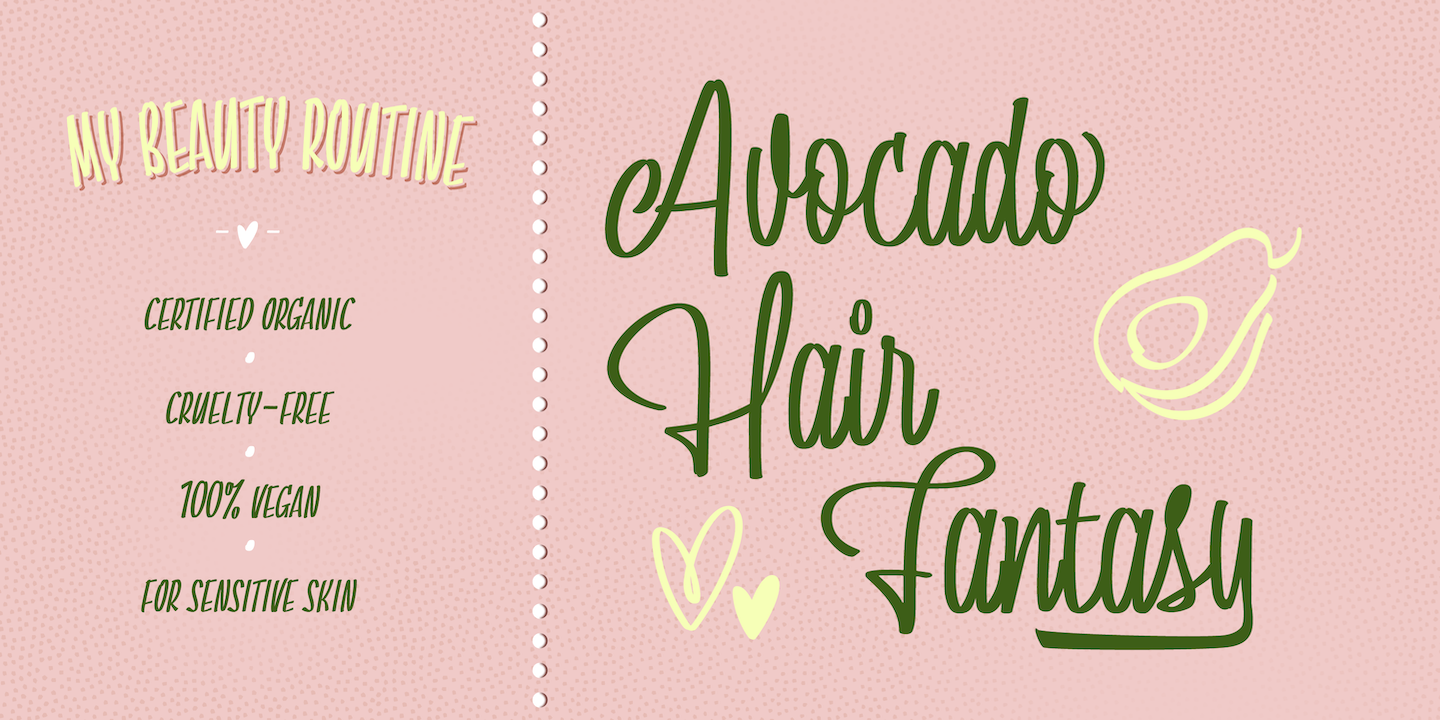
Batticuore Font is perfect for romantic Italian restaurants, passionate love letters, heartfelt wedding invitations, Italian Valentine's Day campaigns, emotional poetry collections, romantic film titles, intimate Italian venues, passionate dance studios, heartfelt greeting cards, and authentic Italian romance designs.
Batticuore Font is exciting because it beats with passionate Italian romance and heartfelt emotion through expressive letterforms that capture the racing heartbeat of true love and the intense passion of Italian amore, making it perfect for brands celebrating deep emotion, romantic passion, and the intoxicating power of heartfelt connection.
The Batticuore Font family includes regular script with passionate flourishes, heart-inspired ornaments, and romantic Italian decorative elements, providing designers with emotional tools for creating typography that pulses with authentic romantic intensity and Italian passionate expression.
When your project needs passionate romance and Italian emotional intensity, Batticuore Font Free Download delivers the perfect typographic heartbeat for romantic communications. This passionate script typeface combines Italian romantic tradition with contemporary functionality, ensuring your designs resonate with audiences seeking genuine emotional connection and authentic passionate expression. The expressive letterforms and heart-inspired styling make this font an essential choice for romantic venues, wedding planners, and any application where Italian passion, heartfelt emotion, and romantic intensity are crucial for creating memorable experiences that celebrate the overwhelming power of true love and the beautiful chaos of hearts beating in perfect synchronization with the rhythm of passionate Italian amore that makes souls dance together in eternal romance.